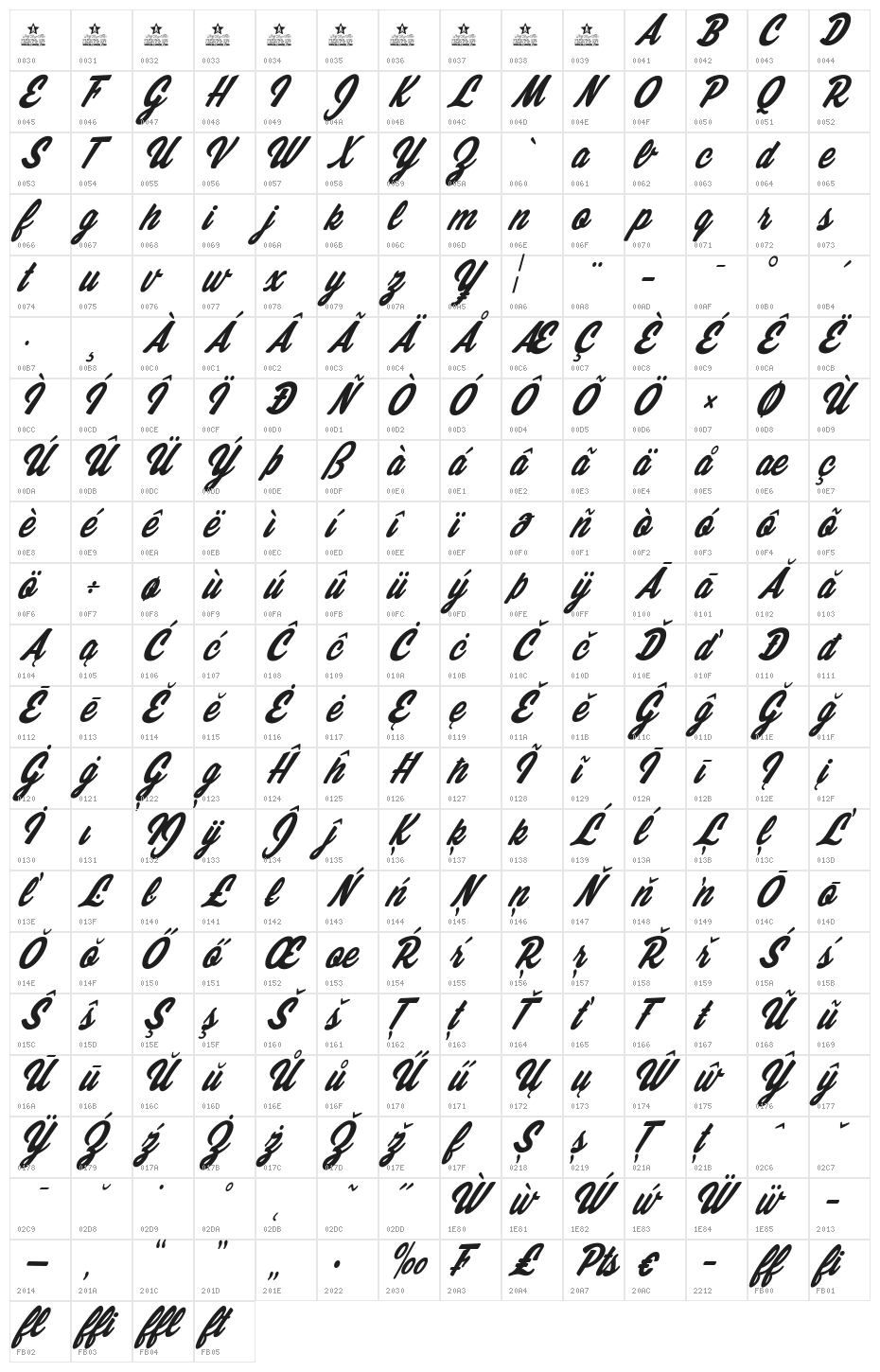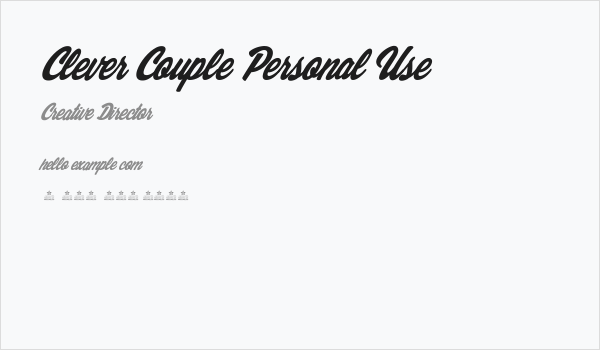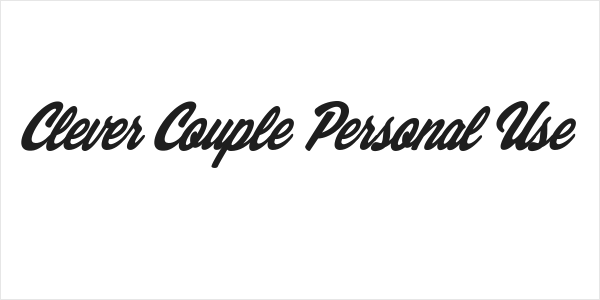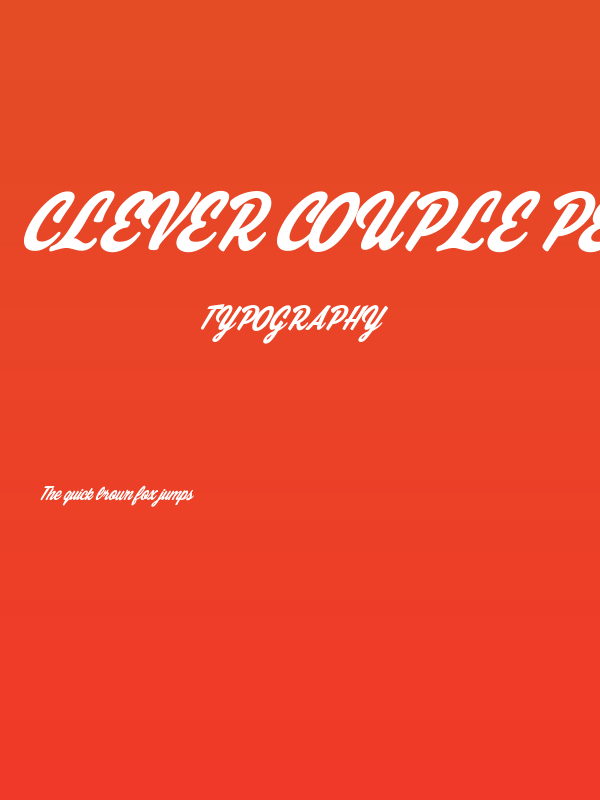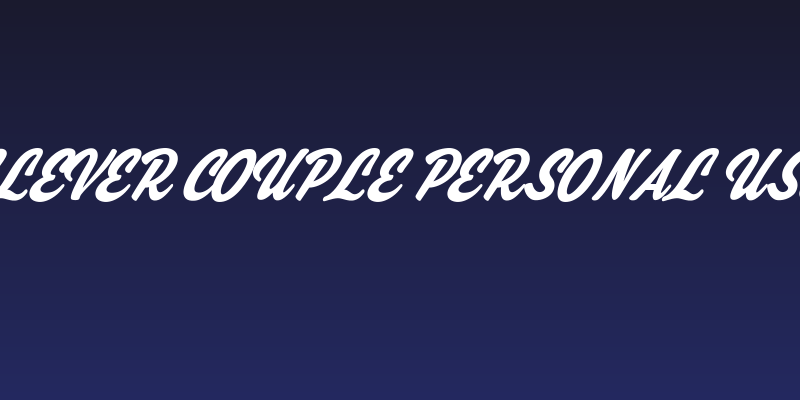
Clever Couple Personal Use Font
Clever Couple Personal Use Description
This font features a bold, cursive style with a strong emphasis on fluidity and elegance. The letters are interconnected, creating a seamless flow that is both dynamic and visually appealing. The uppercase letters are slightly larger and more pronounced, while the lowercase letters maintain a consistent size and style. The font's boldness is evident in its thick strokes, which add a sense of strength and presence. The overall design is modern yet retains a classic script feel, making it versatile for various applications. The character spacing is tight, enhancing the cohesive look of the text.
| Use Case | Logos, Headlines |
| Proposed Projects | Ideal for wedding invitations, branding, logo design, and elegant signage. |